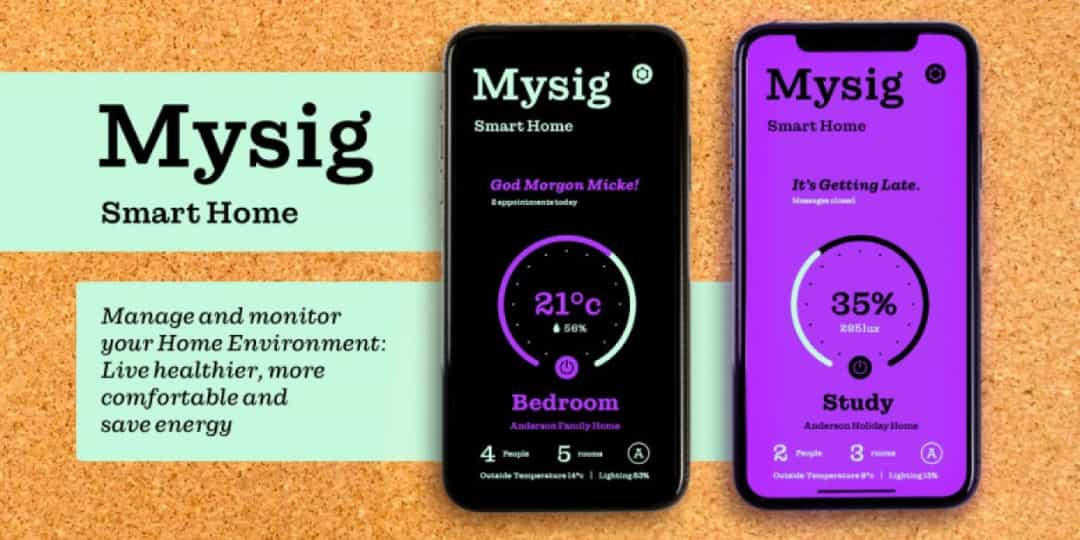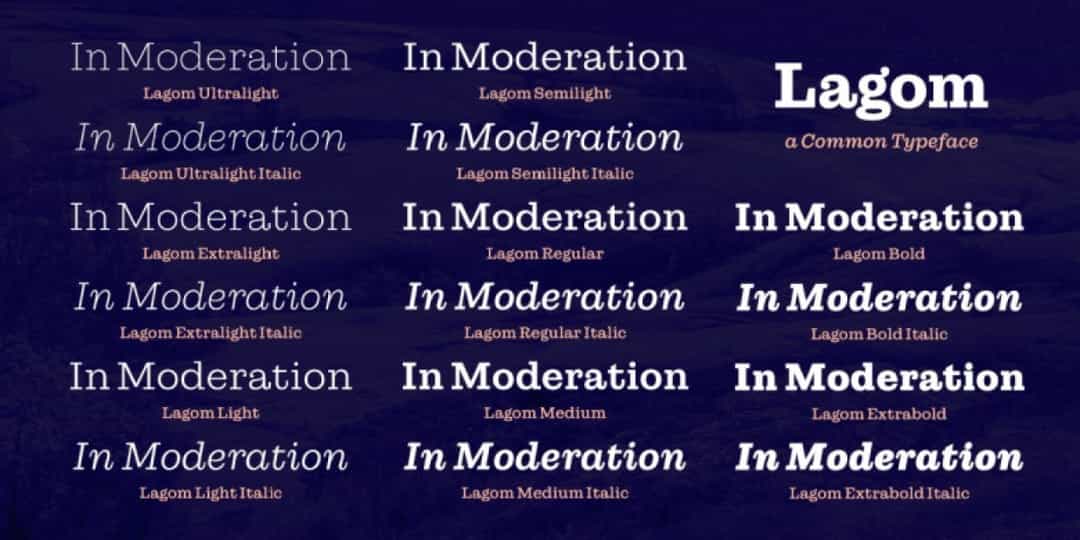
Are some contemporary fonts too cool, quiet or arrogant for your clients’ taste? Try Lagom instead; its friendly yet playful typeface family will help to bridge that humdrum-sexiness divide. Font Family works well when applied to FMCG items, restaurant identities and menus as well as ways to find systems. You could even test it on mobile apps to give it an effortless experience for customers.